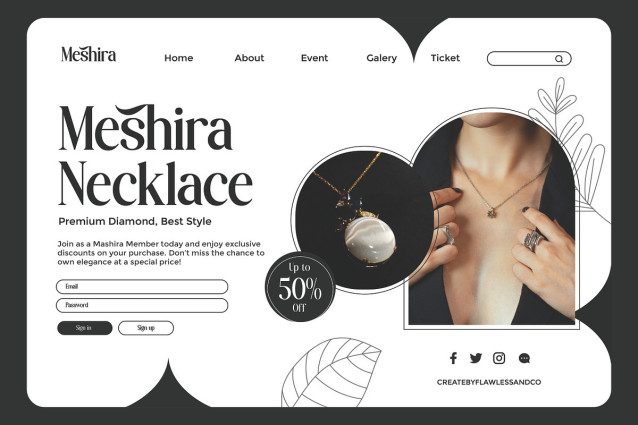
Raslune Font
Raslune Font is a stylish retro serif font that beautifully blends classic vintage charm with a modern twist. With its distinctive serif details, graceful curves, and timeless elegance, Raslune brings a sophisticated yet nostalgic character to every design. Perfectly crafted to deliver both authenticity and style, this font is ideal for branding, packaging, editorial layouts, and creative projects that seek a balance of retro vibes and contemporary appeal.